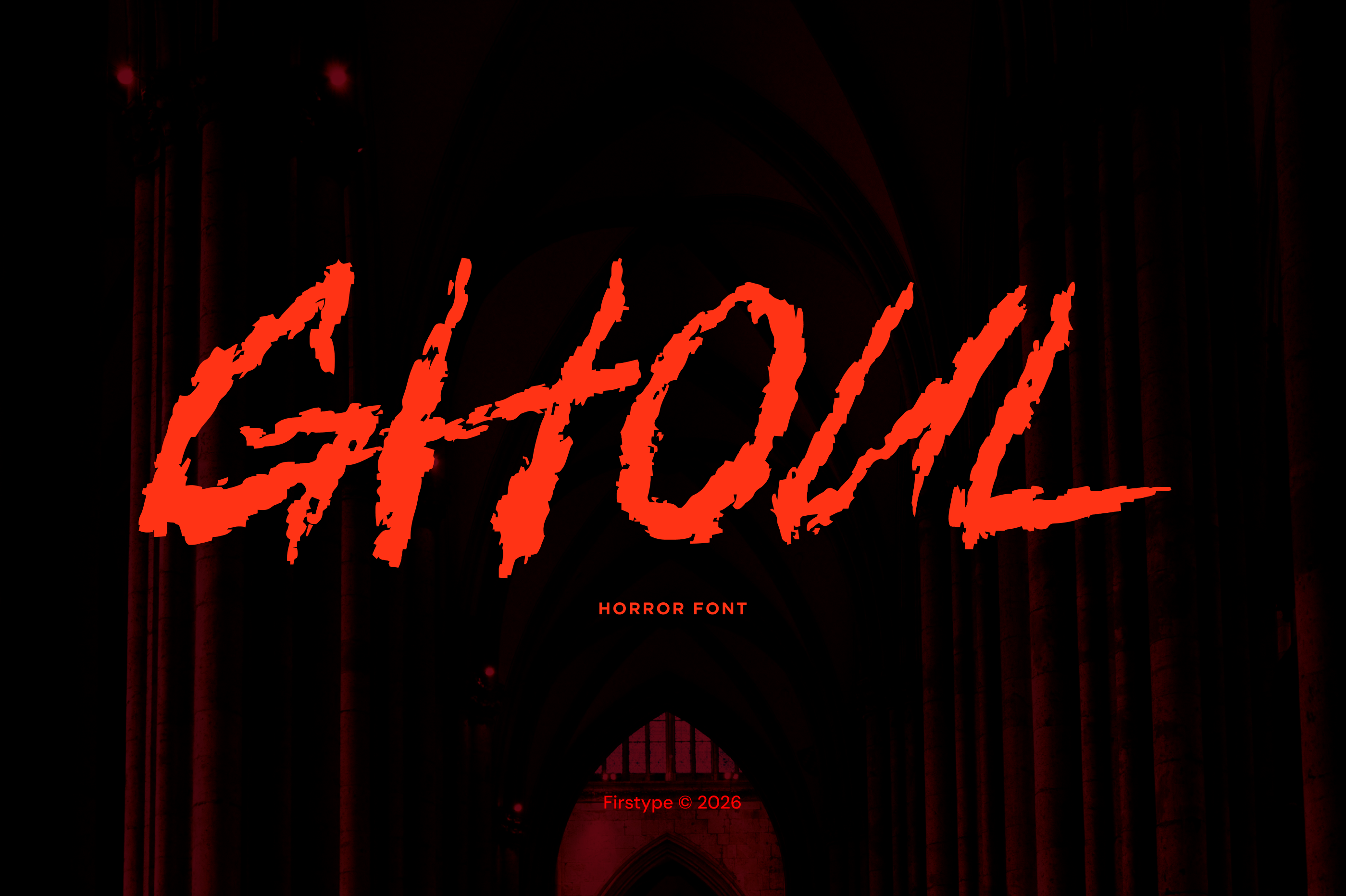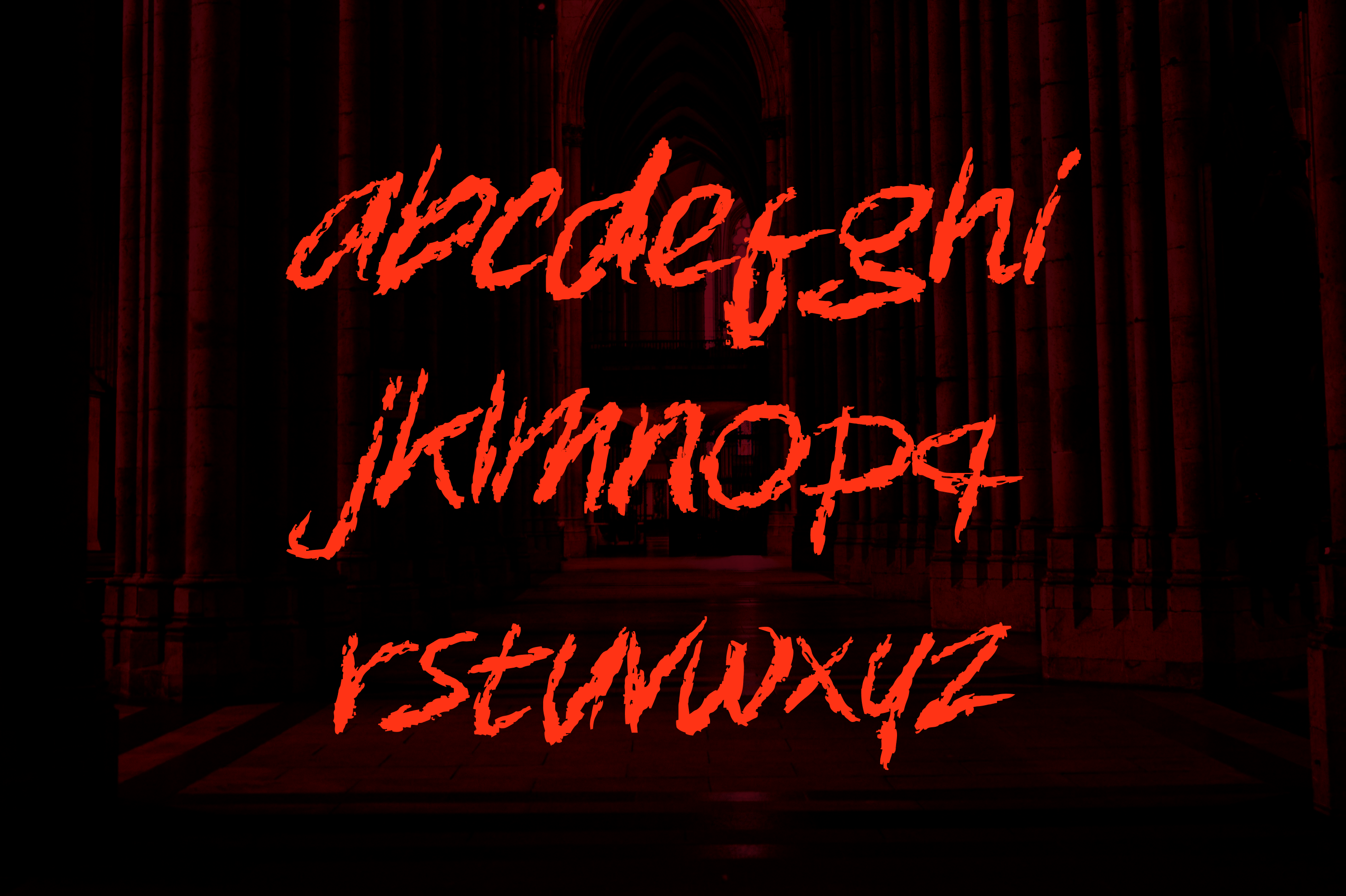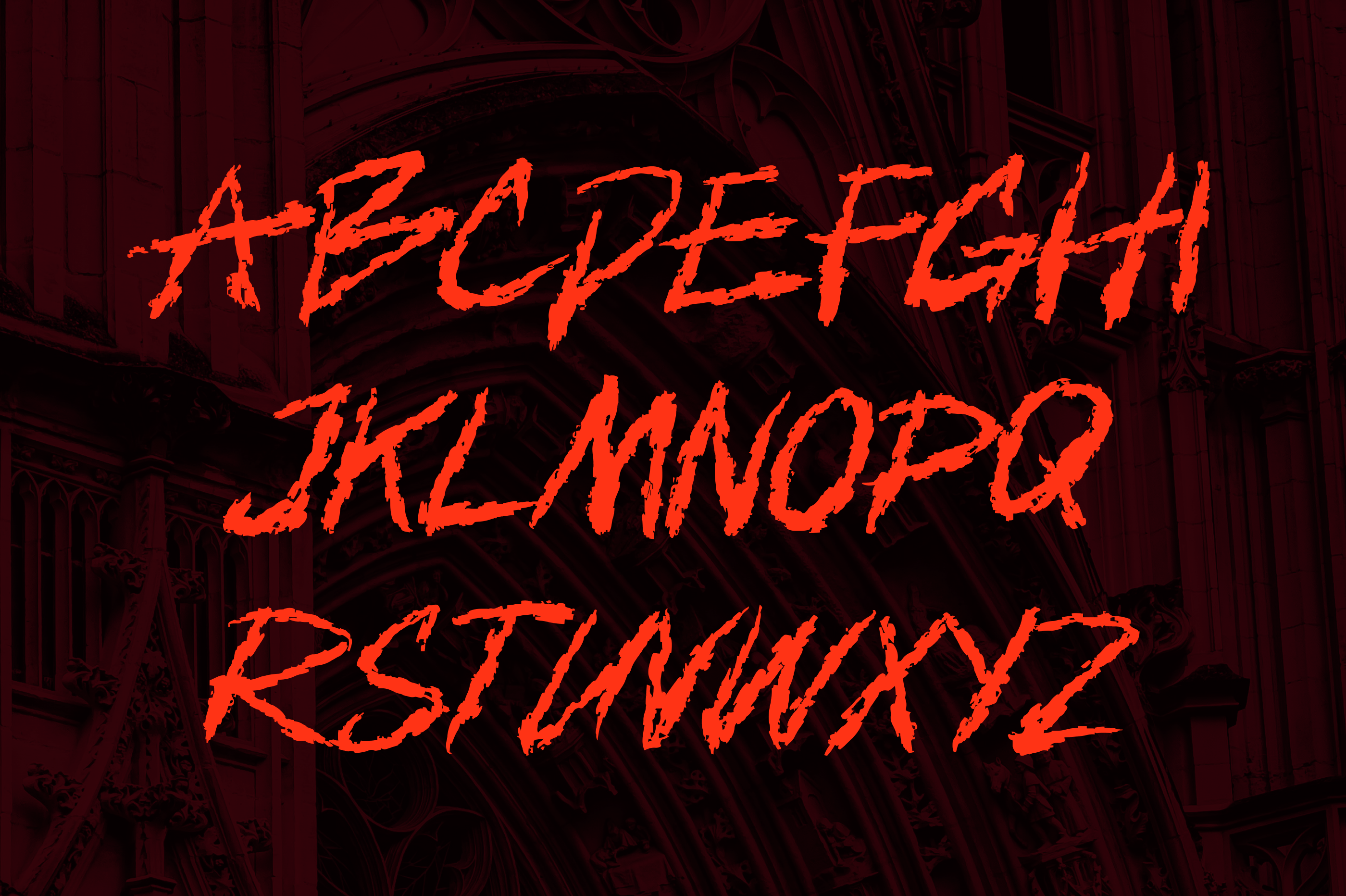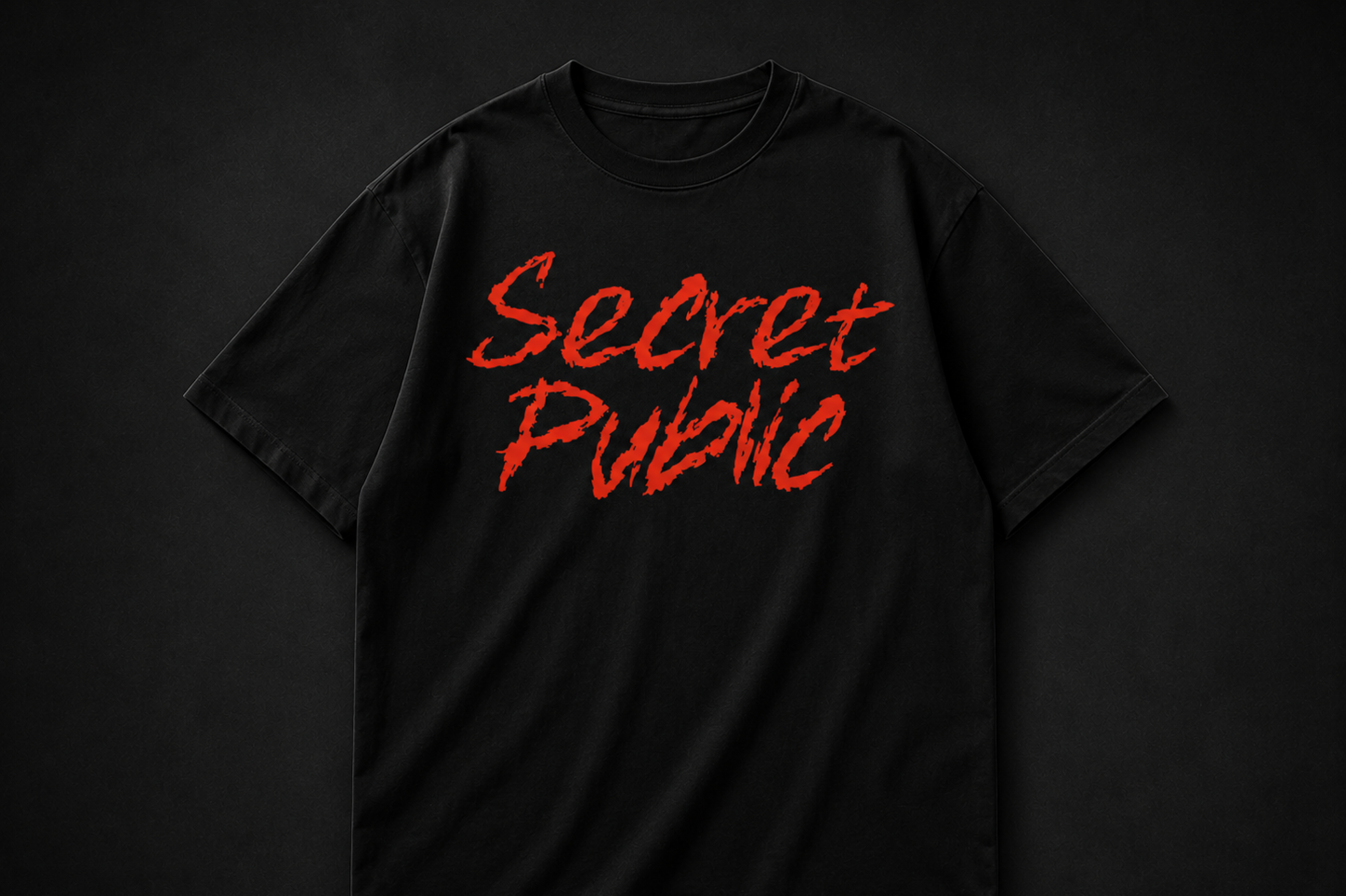
FT Ghoul created by Firstype Studio is a terrifying horror display font crafted to bring raw fear and unsettling energy into your designs. Inspired by slasher movies, haunted locations, zombie outbreaks, and psychological thrillers, this typeface features aggressive brush strokes, rough edges, and an intentionally chaotic texture that captures the essence of horror.
Every character is designed to feel hand-painted in a moment of madness, delivering an authentic, distressed look that immediately creates tension and suspense. Whether you're designing a horror movie poster, Halloween event, game title, album artwork, or dark branding, FT Ghoul adds an unforgettable visual impact.
Built for designers who want bold typography with a sinister personality, FT Ghoul combines expressive brush lettering with high readability, making it suitable for both digital and print projects.
Perfect For Horror Movie Posters Halloween Event Promotions Haunted House Branding Horror Game Titles & UI YouTube Horror Thumbnails Metal & Punk Album Covers Book Covers Dark Apparel & Merchandise Streaming Graphics Social Media Campaigns Features Uppercase & Lowercase Numbers & Punctuation Multilingual Support Stylistic Brush Texture Easy to Use PUA Encoded
FT Ghoul isn't just another horror font—it's designed to make your audience feel the atmosphere before they even read the words. Dark, chaotic, and unapologetically intense, it's the perfect typeface for creators who want typography that screams.